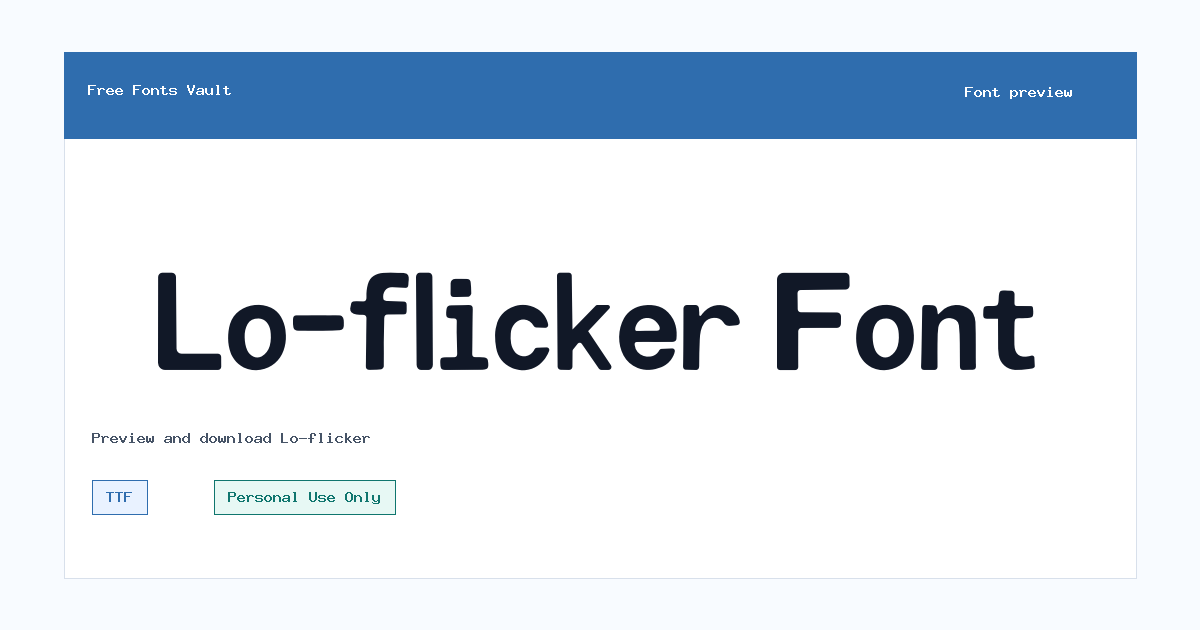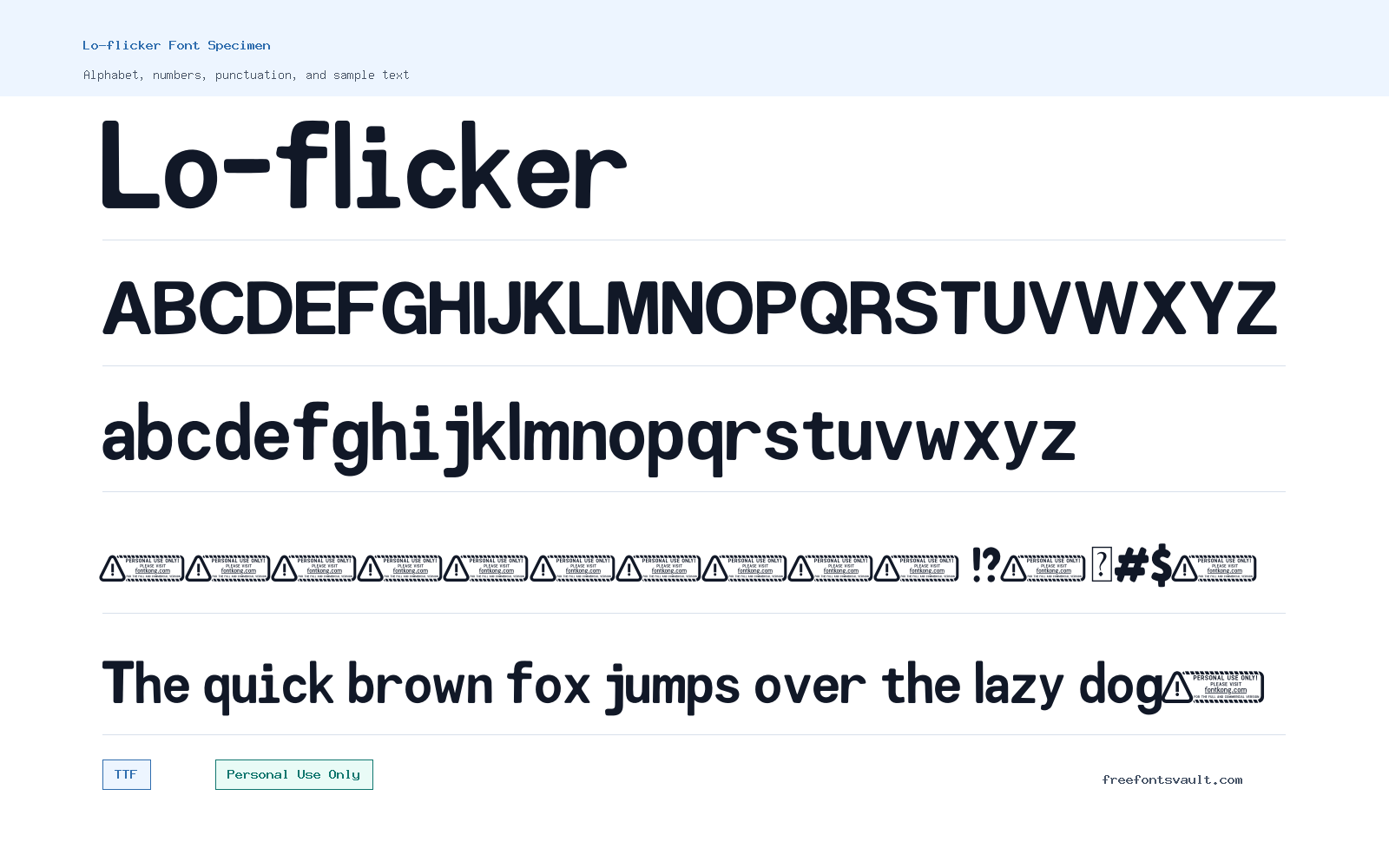
Lo-flicker
Lo-flicker is a display font from Kong Font with a Personal Use Only license. It is best approached as a short-text typeface: test it in the preview, try your own wording, and make sure the license fits your project before downloading.
Lo-flicker is listed as a display font, which means visitors should treat it as a font for impact rather than long reading. Display fonts usually work best when the text is short and the layout gives each letter enough room. Try it with names, titles, poster lines, gaming-style headings, social graphics, YouTube thumbnails, web mockup hero text, and other places where the font can be seen at a larger size.
For poster and cover work, start with large type and keep the surrounding layout clean. A display font can lose its effect if it is placed beside too many other decorative elements. Use Lo-flicker for the main word or headline, then pair it with a plain sans serif for small details like dates, credits, captions, descriptions, button labels, and navigation text. That contrast usually makes the page or graphic easier to read.
Lo-flicker may also be useful for web design mockups when you want to explore a bold heading style before choosing final licensed assets. Use it in hero sections, promo banners, app splash screens, landing page concepts, or title cards, but avoid relying on it for body text unless the preview proves it stays clear at smaller sizes. If the design needs paragraph reading, choose a more neutral companion font for the main copy.
- Display font intended for short, attention-focused text rather than long paragraphs.
- Poster headlines
- Logo concepts for personal projects
- Social media graphics
- YouTube thumbnail text
- Gaming or entertainment title mockups
- Landing page hero headings
- Album, cover, or title-card experiments
Use Lo-flicker at larger sizes first, then reduce it only if the preview stays readable. Keep body copy, menus, captions, and longer descriptions in a clean companion font. For logo work, test the exact brand name, letter spacing, and punctuation before committing, and confirm licensing before any public or commercial release.
Is Lo-flicker good for logos?
Can I use Lo-flicker for website text?
You can test it in web mockups or headings, but it is better suited to short display text. Use a more readable font for paragraphs, menus, and smaller UI text.